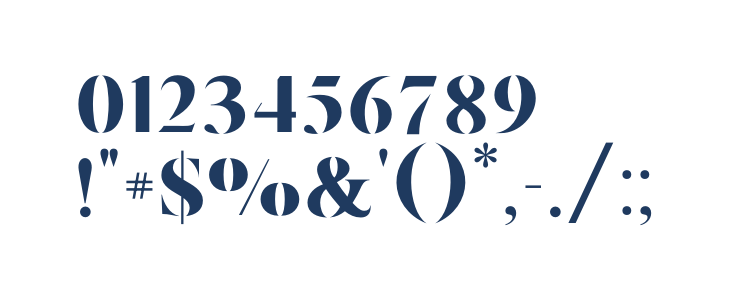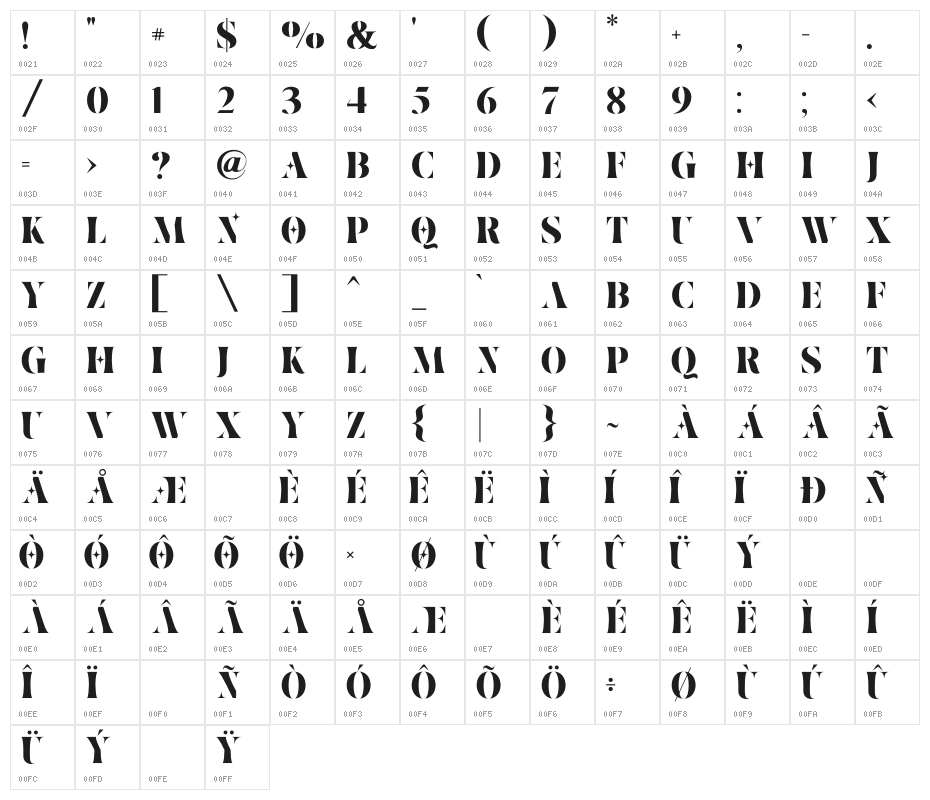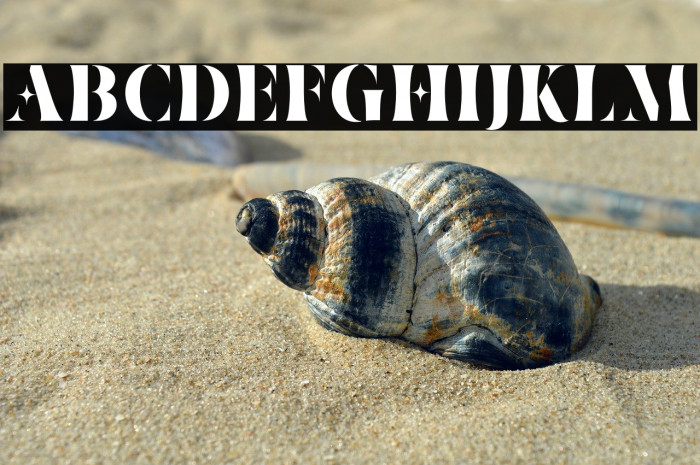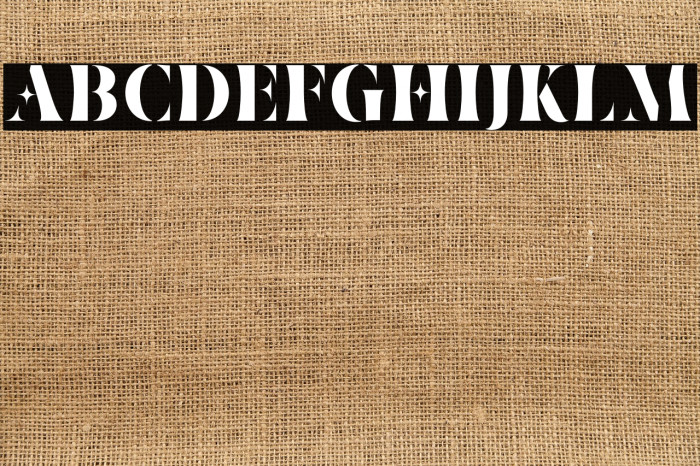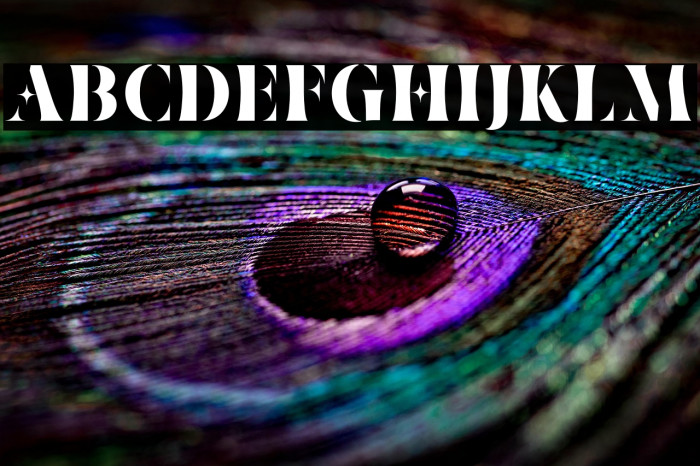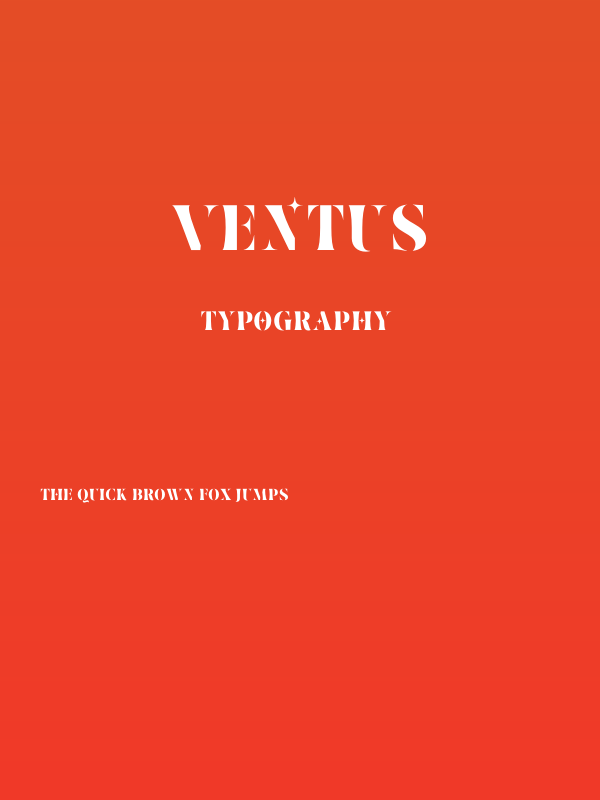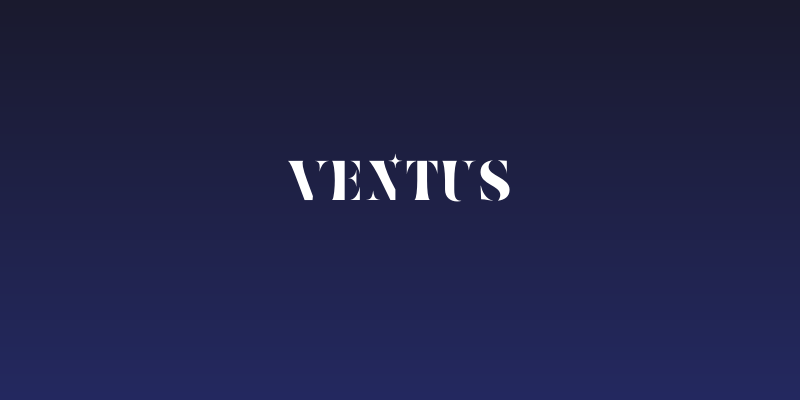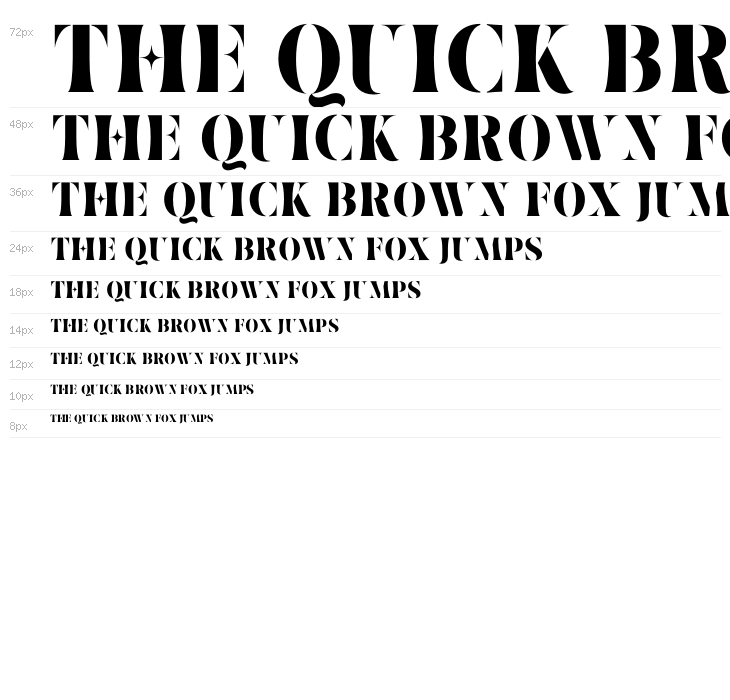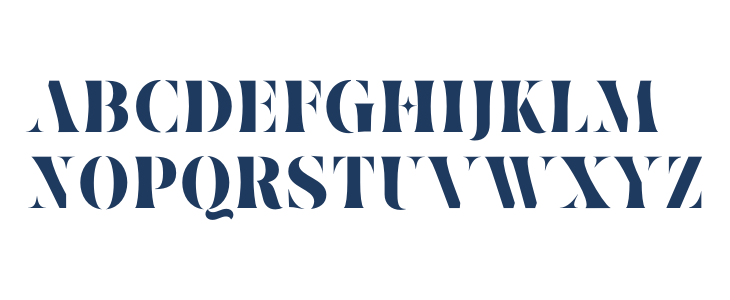
Ventus Font
Ventus Description
This font features a bold and striking design with a stencil-like appearance. The characters are crafted with sharp, angular cuts that create a dynamic and modern look. Each letter is distinct, with high contrast between thick and thin strokes, giving it a unique and edgy style. The uppercase and lowercase letters maintain a consistent design, while the numerals and special characters complement the overall aesthetic. This font's boldness and geometric shapes make it stand out, perfect for attention-grabbing designs.
| Proposed Projects | Ideal for branding, poster design, headlines, and any project requiring a modern, edgy look. |